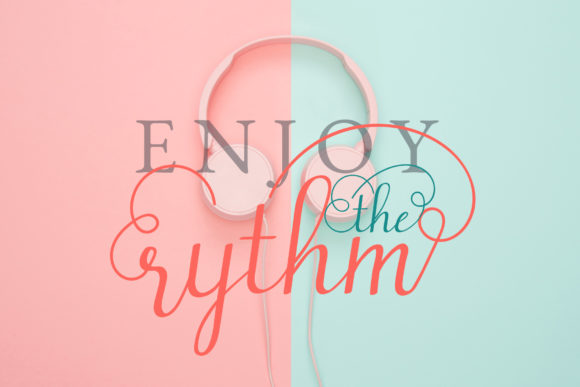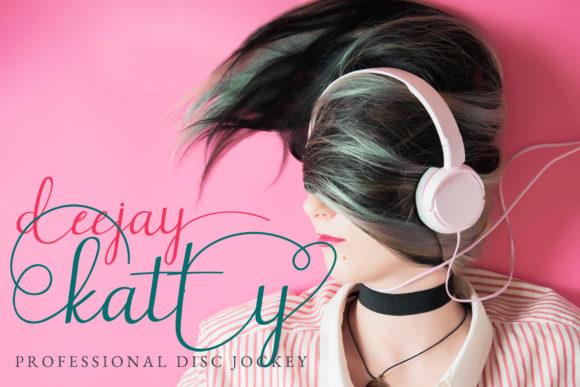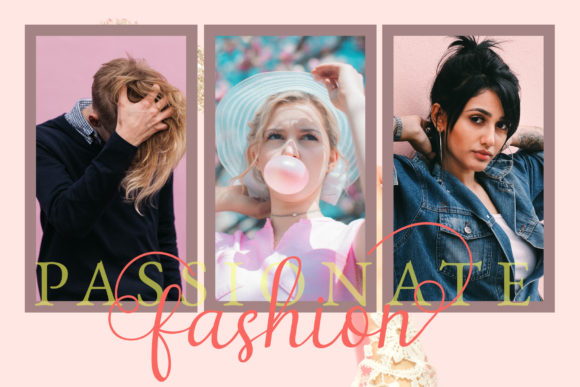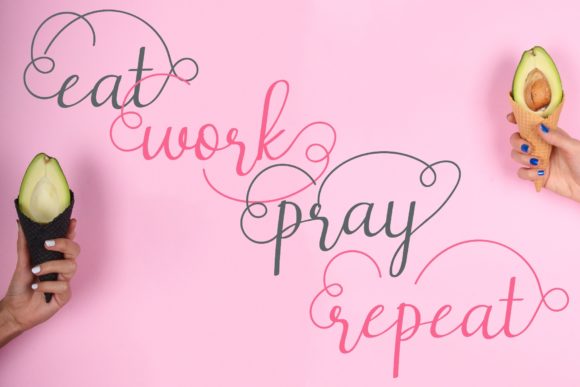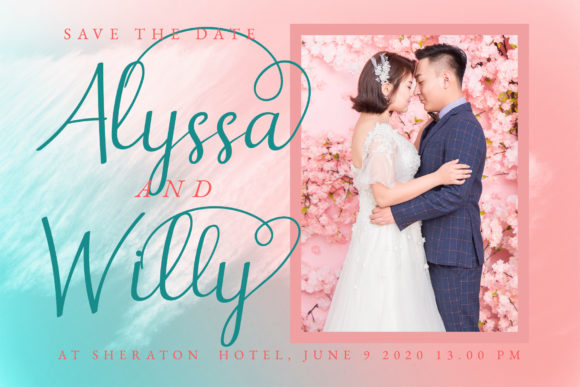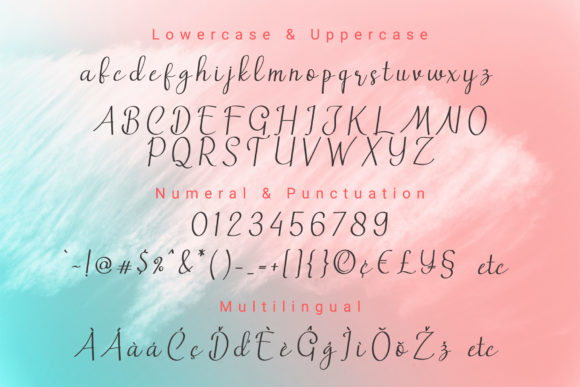
Girls Stuff Font: Elevate Your Crafting Ideas with a Modern and Cute Script Font
Are you a designer, crafter, or DIY enthusiast looking for a font that can add a touch of elegance and playfulness to your projects? Look no further than Girls Stuff Font, an incredibly modern and cute script font that features gorgeous swashes and ligatures. With Girls Stuff, you can turn any crafting idea into a true masterpiece that showcases your creativity and style.
What is Girls Stuff Font?
Girls Stuff Font is a beautifully designed script font that is perfect for crafters, designers, and anyone who loves to create. Its modern and cute design makes it ideal for a wide range of projects, from DIY crafts and scrapbooking to branding and marketing materials. The font features gorgeous swashes and ligatures that add a touch of sophistication and elegance to any design.
Key Features of Girls Stuff Font
- Modern and Cute Design: Girls Stuff Font has a fresh and playful design that is sure to capture the attention of your audience.
- Gorgeous Swashes and Ligatures: The font features beautiful swashes and ligatures that add a touch of elegance and sophistication to any design.
- Perfect for Crafting and DIY Projects: Girls Stuff Font is ideal for crafters, scrapbookers, and DIY enthusiasts who want to add a personal touch to their projects.
- Easily Customizable: The font is easy to customize, allowing you to adjust the size, color, and style to fit your design needs.
How to Use Girls Stuff Font in Your Projects
Girls Stuff Font is versatile and can be used in a wide range of projects, including:
- Scrapbooking: Add a personal touch to your scrapbook pages with Girls Stuff Font.
- DIY Crafts: Use the font to create beautiful and unique DIY crafts, such as cards, gift tags, and decorations.
- Branding and Marketing: Use Girls Stuff Font to create stunning branding and marketing materials, such as logos, brochures, and social media graphics.
- Stationery and Invitations: Create beautiful and elegant stationery and invitations with Girls Stuff Font.
Why Choose Girls Stuff Font?
There are many reasons why Girls Stuff Font stands out from other fonts. Here are a few:
- Unique and Modern Design: Girls Stuff Font has a unique and modern design that will set your projects apart from others.
- Elegant Swashes and Ligatures: The font’s gorgeous swashes and ligatures add a touch of elegance and sophistication to any design.
- Easily Readable: Despite its elegant design, Girls Stuff Font is easily readable, making it perfect for body text and headlines.
Tips and Tricks for Using Girls Stuff Font
Here are a few tips and tricks for using Girls Stuff Font in your projects:
- Experiment with Different Sizes and Colors: Try out different sizes and colors to see what works best for your design.
- Use Swashes and Ligatures to Add Elegance: Use the font’s gorgeous swashes and ligatures to add a touch of elegance and sophistication to your design.
- Pair with Other Fonts: Experiment with pairing Girls Stuff Font with other fonts to create a unique and visually appealing design.
Girls Stuff Font is an incredibly modern and cute script font that features gorgeous swashes and ligatures. With its unique and elegant design, it’s perfect for crafters, designers, and DIY enthusiasts who want to add a touch of sophistication and elegance to their projects. Whether you’re working on a scrapbooking project, DIY craft, or branding and marketing materials, Girls Stuff Font is sure to turn your ideas into true masterpieces.